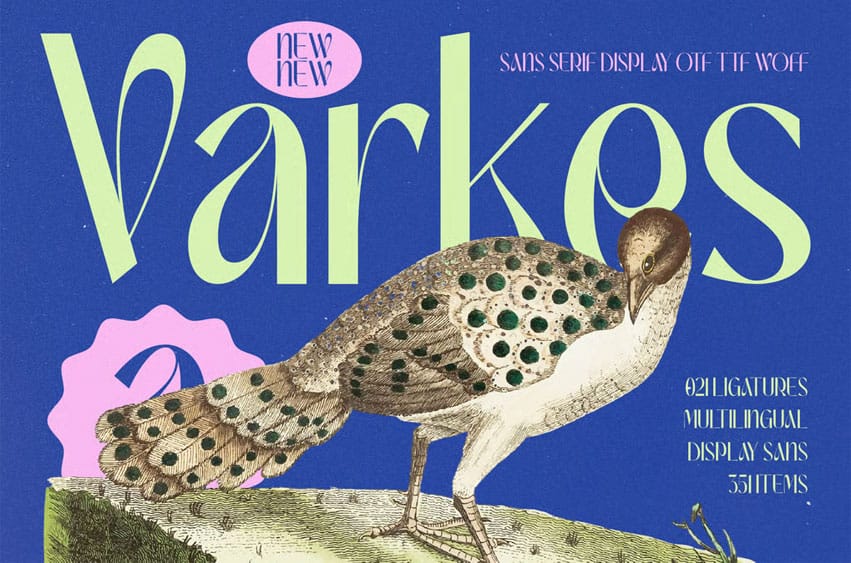
Varkes Font is a quirky, stylish, and modern sans-serif display font inspired by retro editorial lettering and experimental poster typography. With its tall, angular forms and playful curves, Varkes brings a bold personality that stands out effortlessly in any visual direction. Perfect for branding, magazine layouts, packaging, album covers, creative advertising, and expressive artistic projects.
This typeface includes 21 creative ligatures and 351 total glyph items, giving designers full freedom to create unique letter combinations and dynamic visual compositions. Varkos supports multilingual characters and is delivered in OTF, TTF, and WOFF, ensuring smooth use across platforms and design tools.